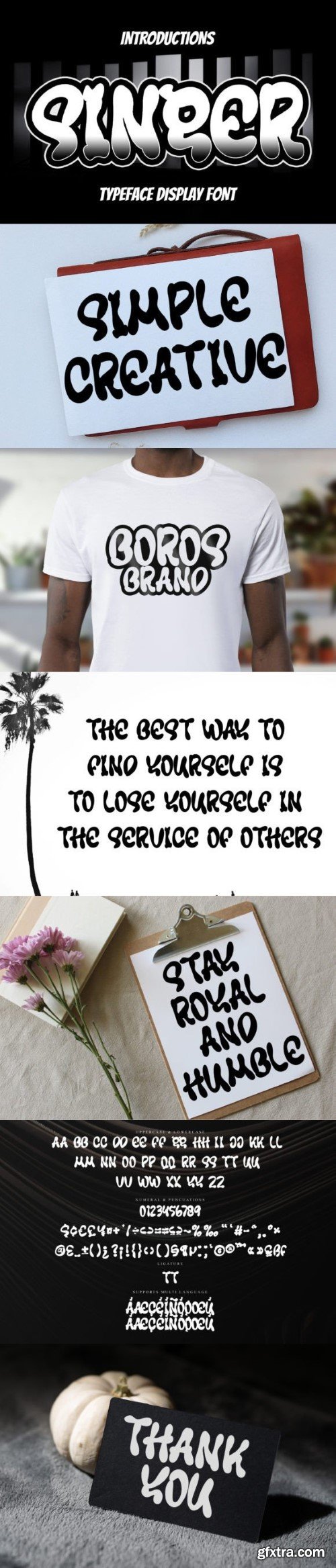
Singer Font
Singer is a beautiful display lovely font perfect for magazines and crafts. Add it to your fonts library, and use it to create spectacular designs!